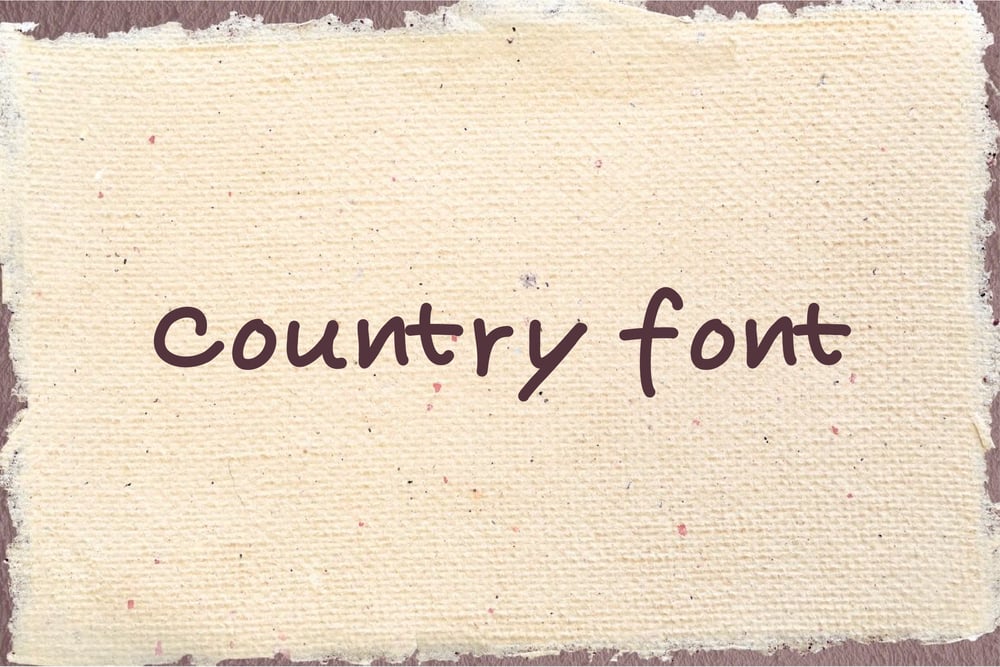
Country Font Handwritten font
Country Font Handwritten font font
Country Font Handwritten font Font Family was designed by published by Numoofun Fount. Country Font Handwritten font contains 1 styles and family package options. Country Font stands out with its rustic charm and handcrafted appeal, making it a perfect choice for designs that exude warmth and simplicity. Each letter is carefully hand-drawn, reflecting a unique, imperfect beauty that adds character and authenticity. The font’s natural flow and subtle details evoke a sense of nostalgia, ideal for farmhouse-inspired designs, rustic signage, and creative DIY projects. Its versatility shines through, seamlessly fitting logos, apparel, labels, and more. Whether you’re creating a cozy brand identity or adding a personal touch to crafts, Country Font delivers a distinctive aesthetic that combines elegance with a homely, down-to-earth vibe.Features:Supports fast responseEasy to useIncludes uppercase and lowercase lettersContains numbers and punctuationPerfect for: Logos, branding, wedding invitations, farmhouse decor, signs, crafting, mugs, shirts, pantry labels, stickers, business cards, greeting cards, posters, social media, planners, and websites.